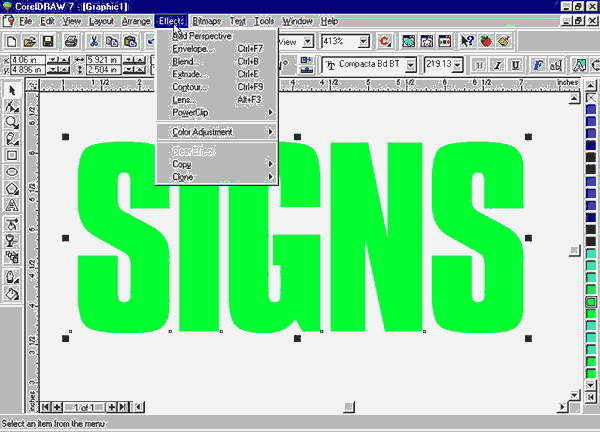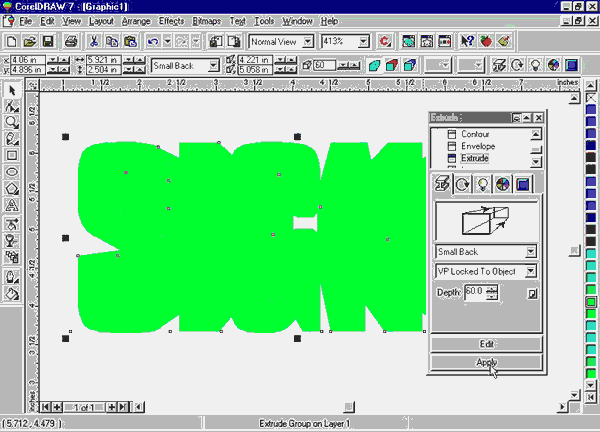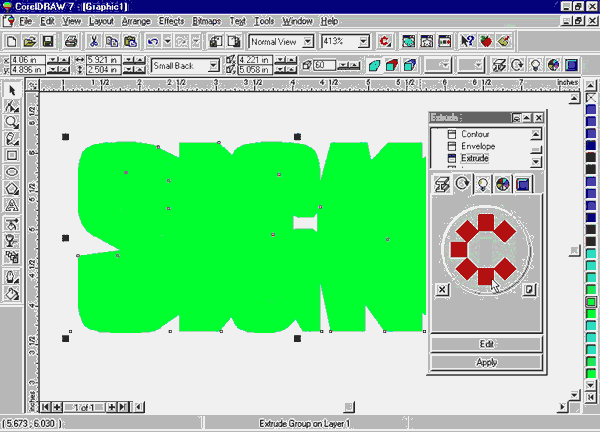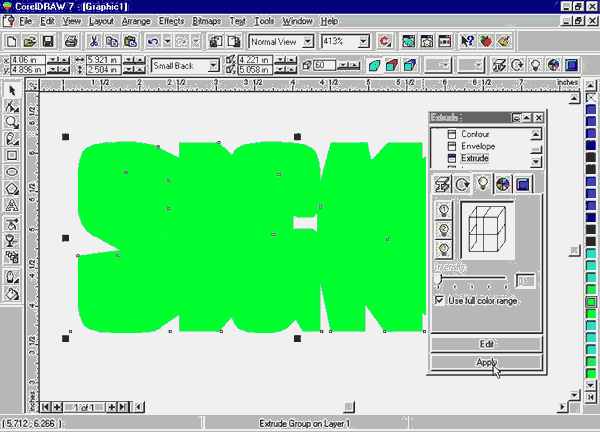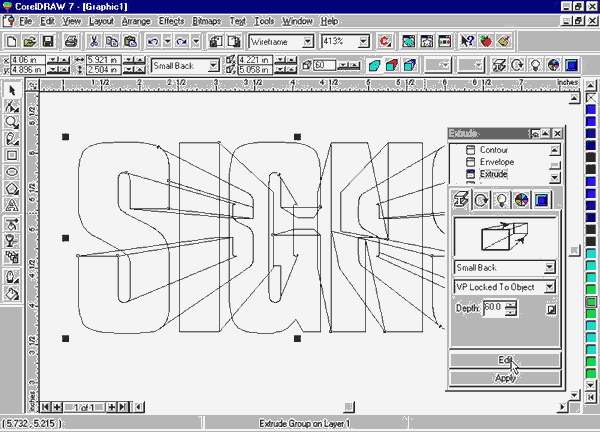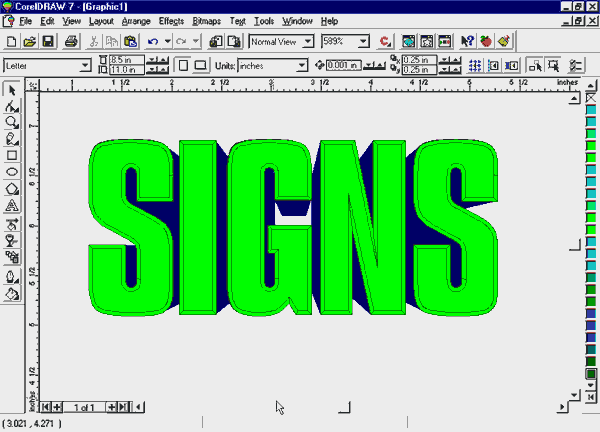
Creating
The 3D Effect In Corel7 |
| I'm using Corel7 for this project. If
I leave something out, it's because I'm an old brain-dead pinstriper
type that was dragged kicking and screaming into the computer age. The
images below are all in thumbnail format. Click on them if you want a
bigger image.
In a nutshell, the 3D effect is accomplished by using the "Extrude" command in Corel. This command has an endless variety of features and manipulations to it. The best way to learn it is to just play around with it. You'll find you are making your own discoveries in no time. 1. Place grouped text on your screen. 2.From your top menu, select Effects, then Extrude. 3. From the drop down list, click on Extrude. |
![]() 4. Now click on the I-Beam icon. This gives you choices of how the extrude dimensions will be placed. 5. Experiment with different effects. When you find what you want click on Apply. |
![]() 6. Now click on the circular arrow icon. A group of red squares in a circle will appear. Drag your cursor over them and you'll see how you can manipulate the changes in direction of the extrude effect. Click on Apply when you are happy with your results. |
![]() 7. Now we'll select our light source. Click on the light bulb icon and you'll see 3 bulbs. Place these anywhere in your diagram to direct "sunlight" on to your text object. When satisfied, click on Apply. |
![]() 8. To color your diagram, click on the colorwheel icon and 3 choices will appear. You can make the extrude the same color as your text, give it a new color or even a 2 color blend. |
![]() 9. You'll notice there is a bevel option available. A click on this will open up a number of options that will allow you to apply a bevel effect to your drawing.
| 10. At this point you are ready to
print, plot or print/cut.